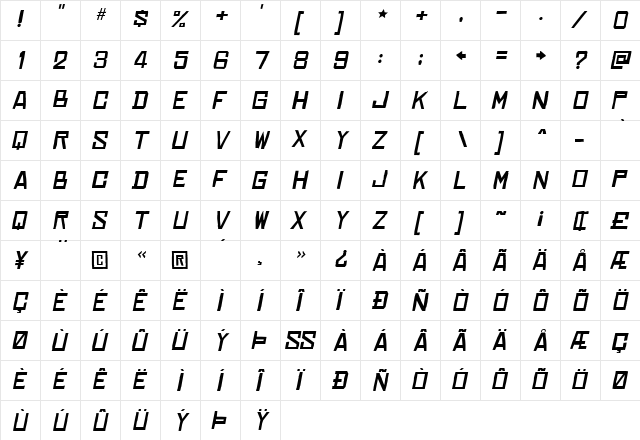
Chinese Rocks Xp Italic
Design Context for Chinese Rocks Xp Typeface
Chinese Rocks Xp takes a measured approach to typography — its balanced proportions and neutral character make it a reliable workhorse for both digital and print work. The slanted form adds forward momentum and visual energy.